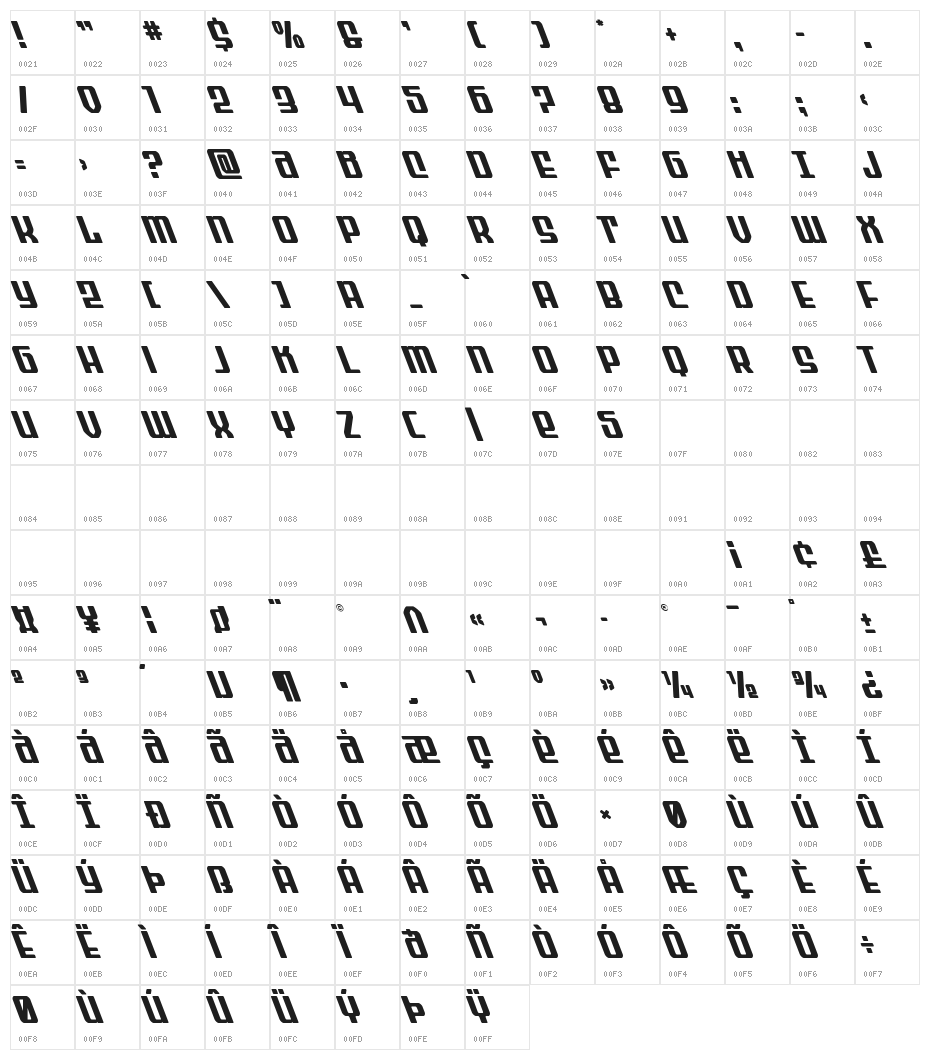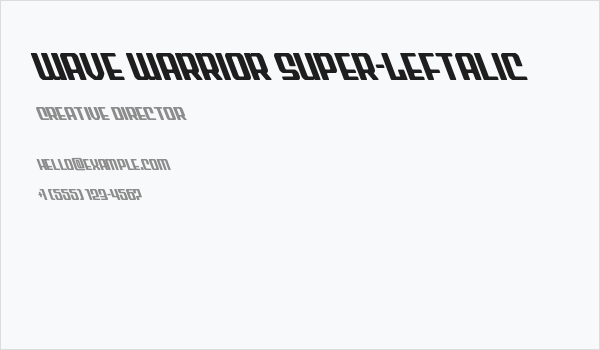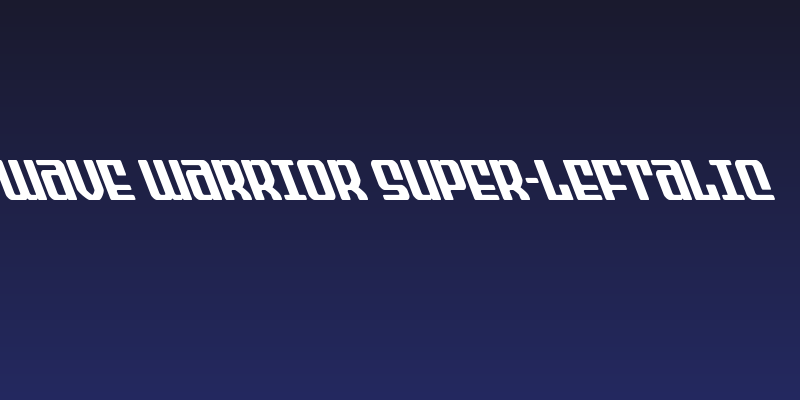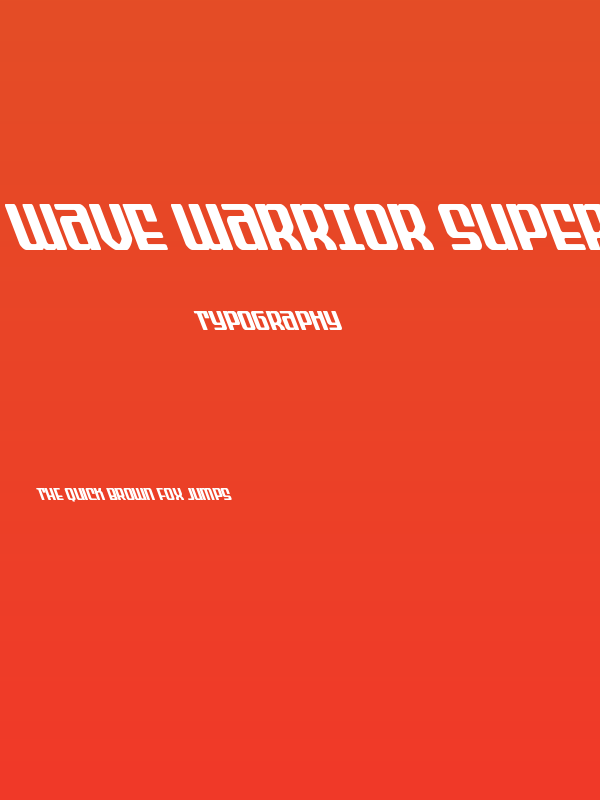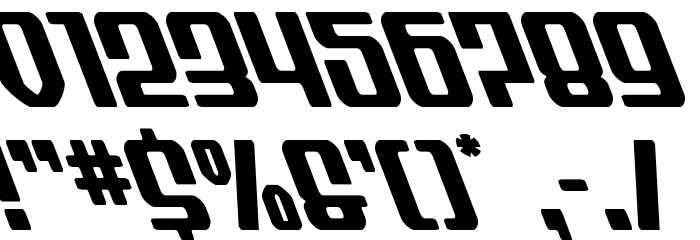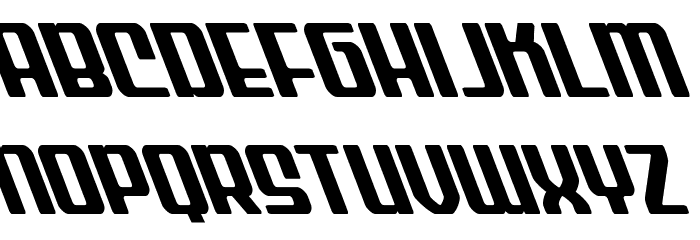
Wave Warrior Super-Leftalic Font
This font features a bold and dynamic style with a strong leftward slant, giving it a sense of movement and energy. The characters are wide and have a blocky appearance, with consistent stroke thickness that adds to its boldness. The uppercase and lowercase letters maintain a uniform look, while the numbers and special characters are designed to match the overall aesthetic. The font's geometric shapes and sharp angles make it stand out, suitable for attention-grabbing designs.
| Proposed Projects | Ideal for sports branding, action-themed posters, video game titles, and dynamic logos. |